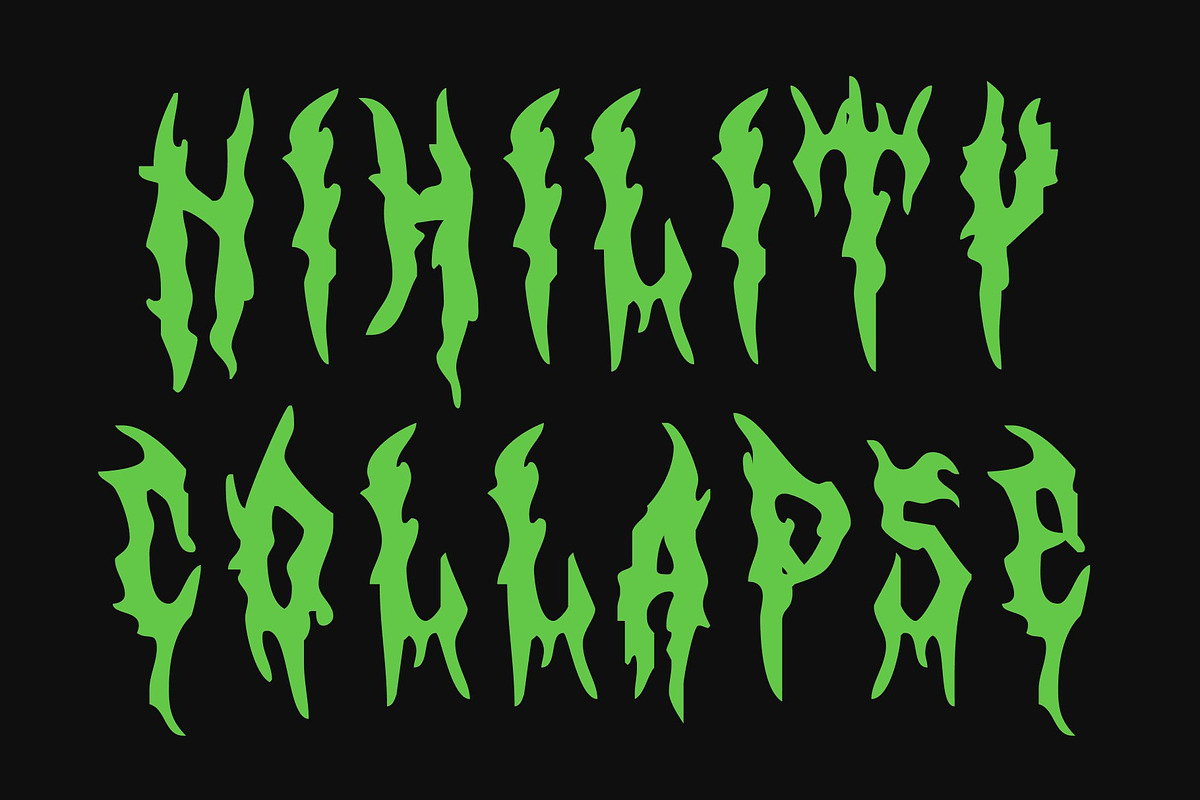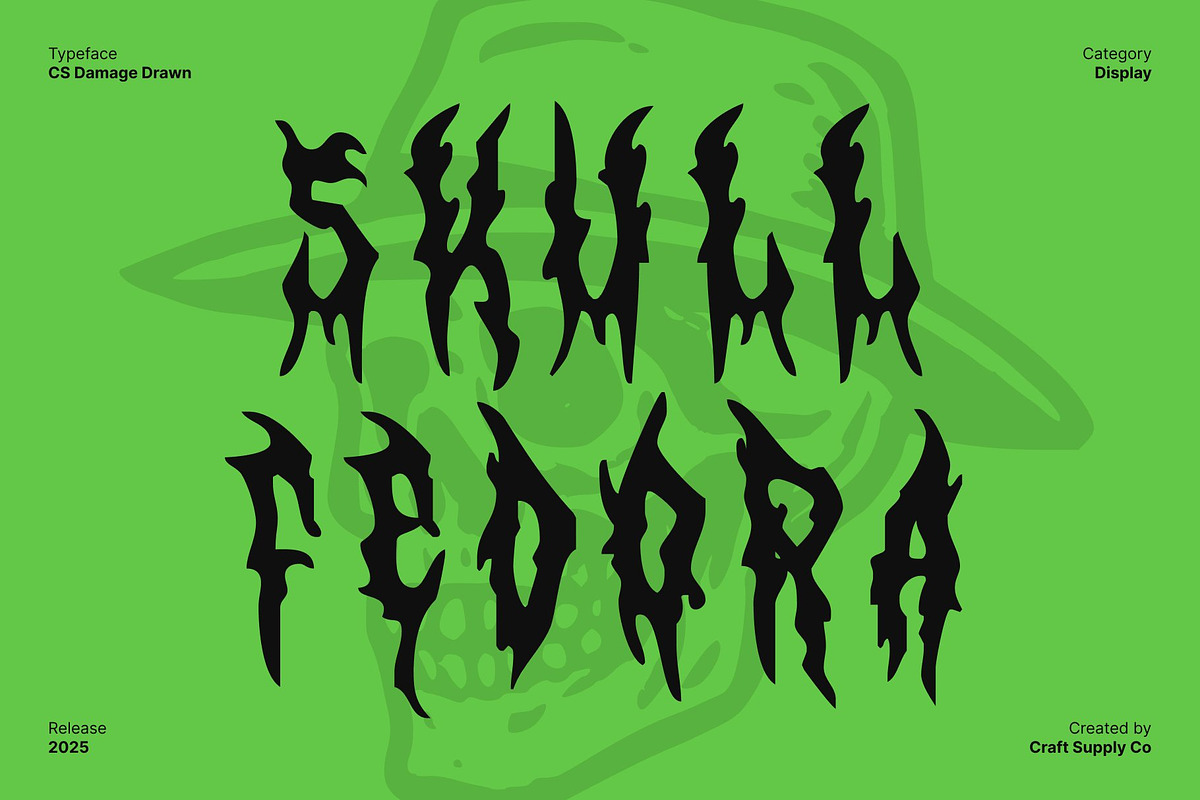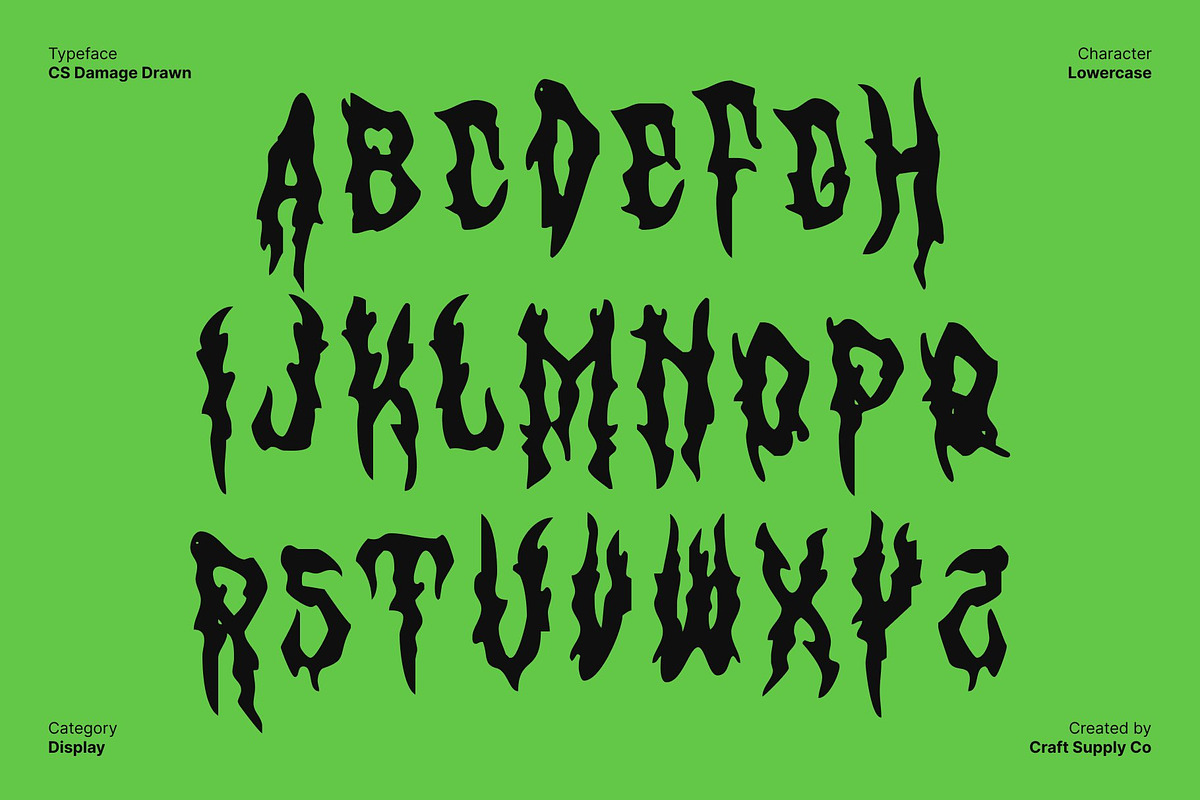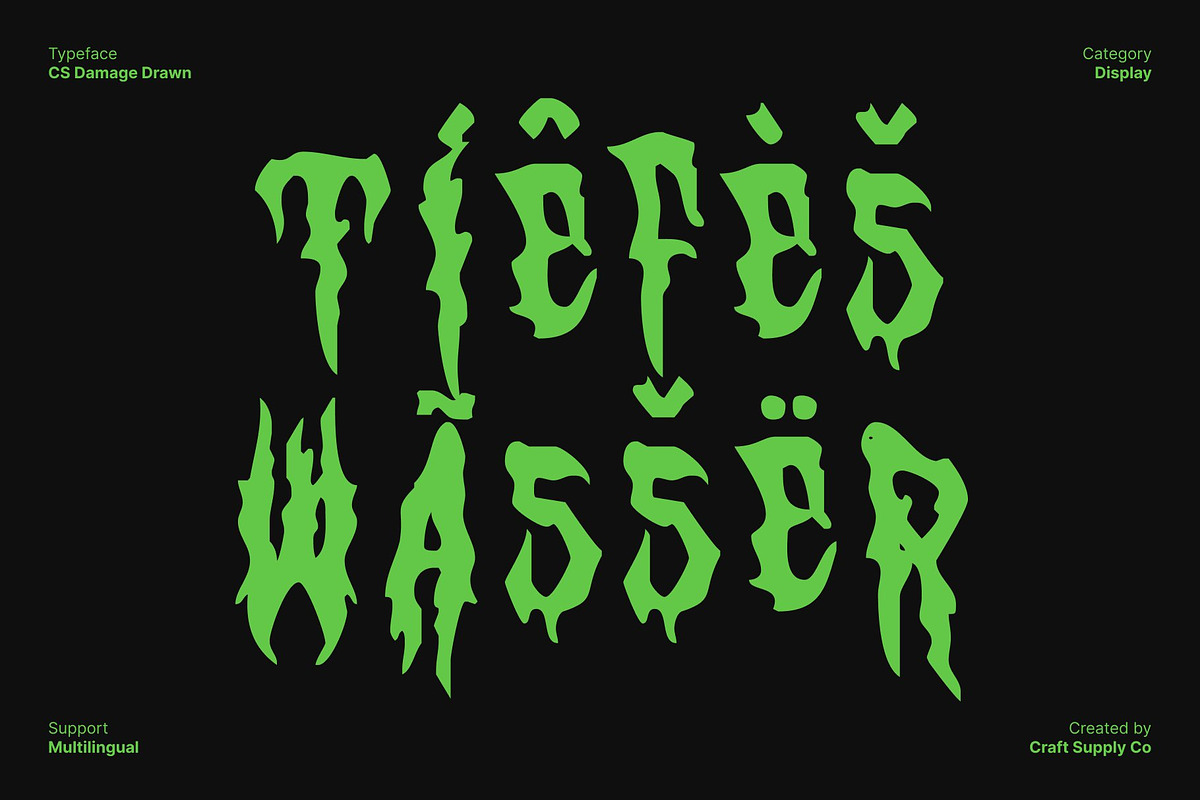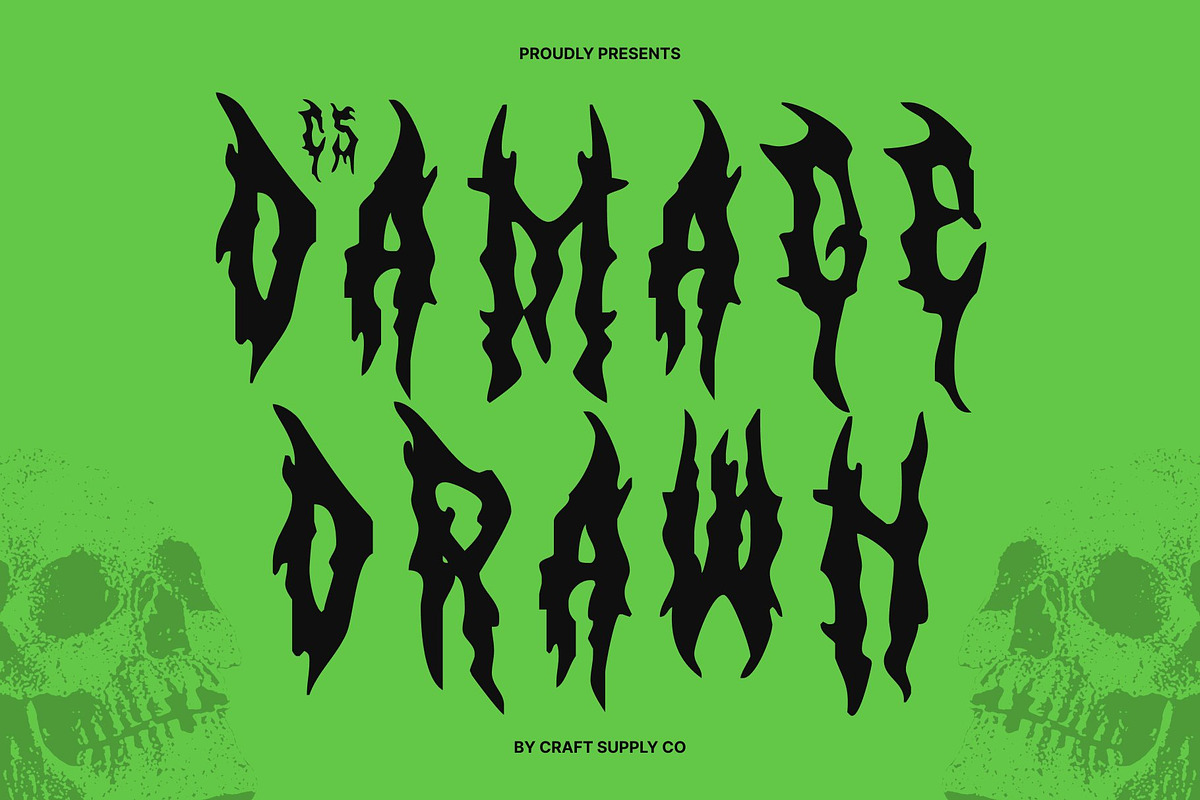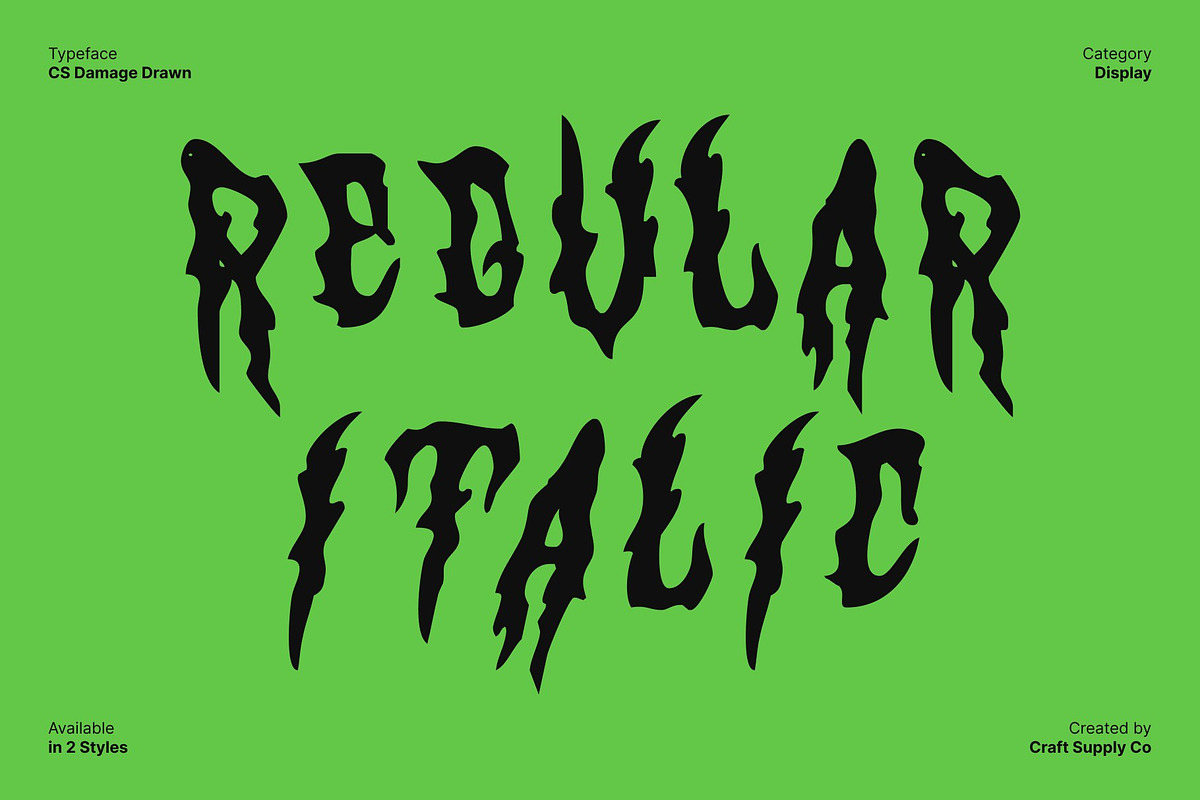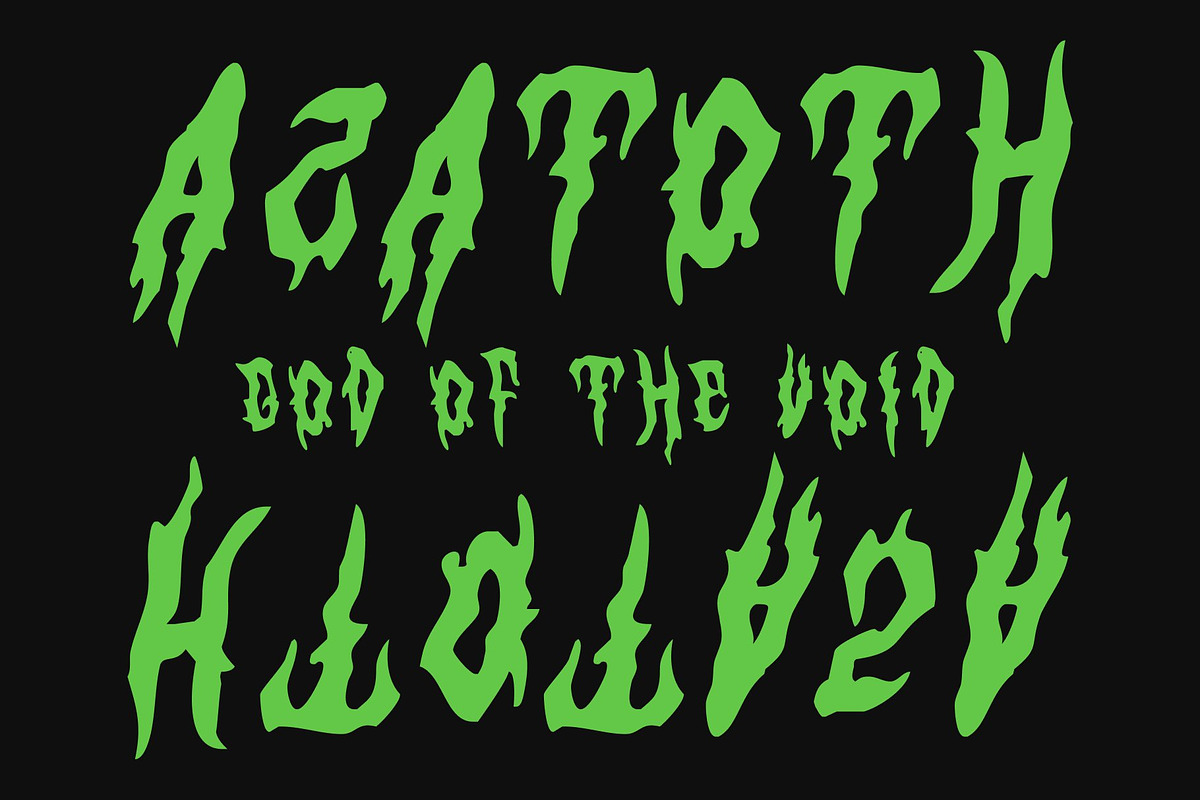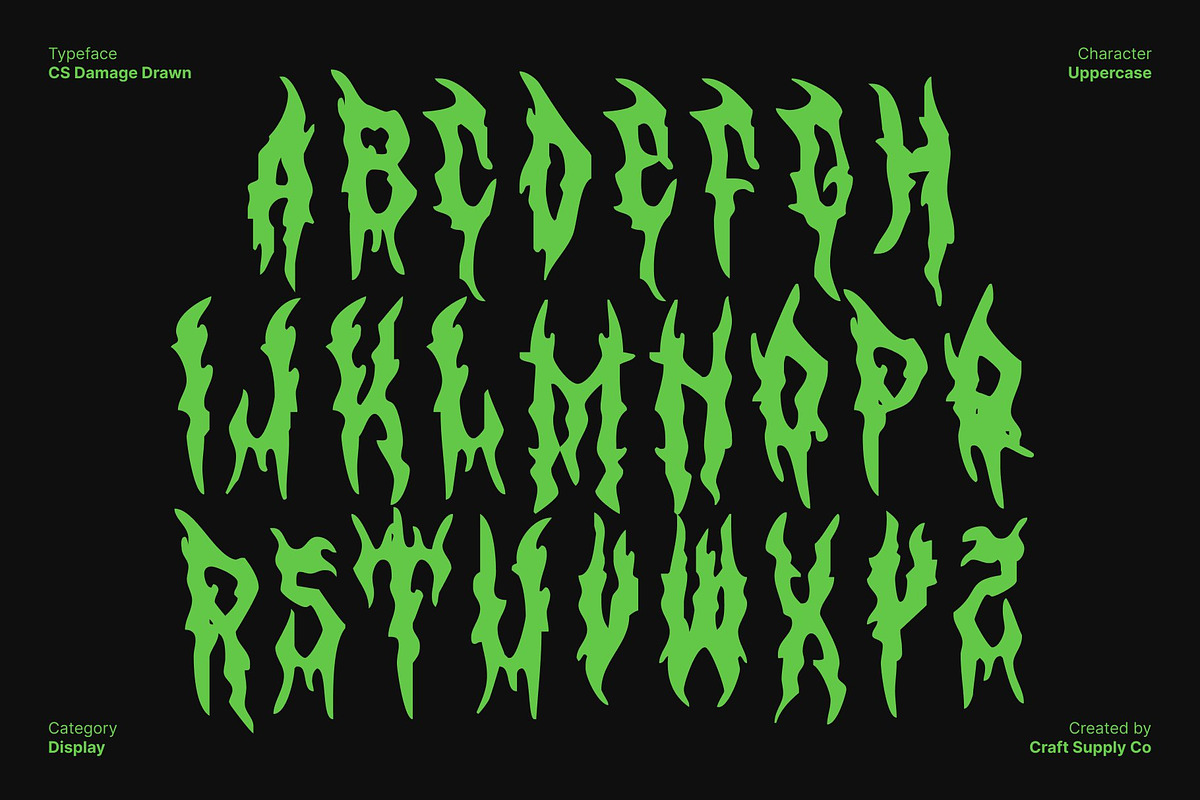
CS Damage Drawn
CS Damage Drawn – Black Metal Display Font with Raw Hand-Drawn Energy
Jagged, Aggressive Strokes for Maximum Impact This is a black metal display font designed to convey raw intensity and rebellious energy. Its jagged spikes, chaotic lines, and sharp forms create a strikingly aggressive aesthetic, instantly commanding attention. Each letter embodies the ferocity and dark spirit of extreme music, making it perfect for projects that demand a bold, edgy presence.
Hand-Drawn Texture Adds Authenticity The drawn effect enhances this font with a handcrafted, organic quality. Subtle irregularities and rough textures give each glyph a unique, gritty character, amplifying its aggressive tone while adding depth and artistic flair. This combination of chaos and craftsmanship ensures the font feels alive and authentic.
Perfect for Band Logos, Posters, and Edgy Design This font excels in visual contexts that celebrate rebellion and intensity. It is ideal for metal band logos, album covers, gig posters, merchandise, and underground branding. The font’s dramatic, spiked forms ensure your designs are visually unforgettable and full of raw power.
A Typeface That Embodies Extreme Music Energy This font balances aggression with artistic expression, delivering a font that captures the essence of black metal culture. Its jagged forms, chaotic strokes, and hand-drawn detailing make it a go-to choice for designers who want to convey darkness, rebellion, and high-impact intensity in every project.
- CS Damage Drawn Regular
- CS Damage Drawn Italic